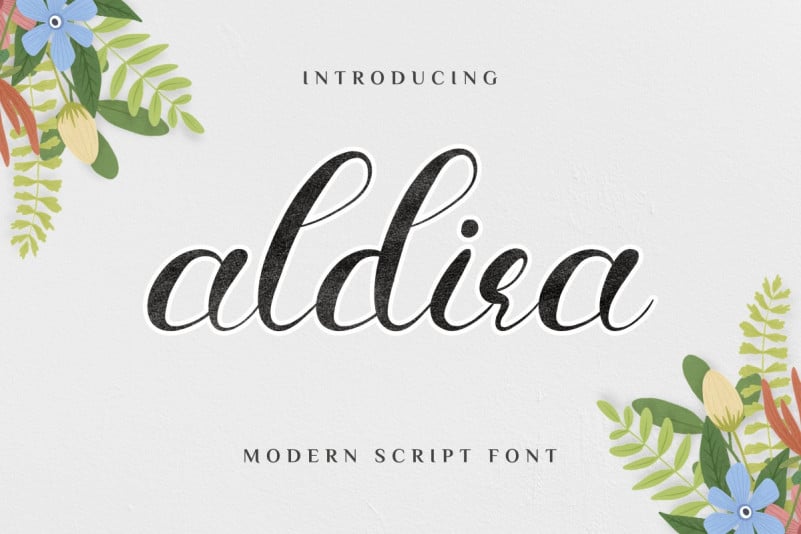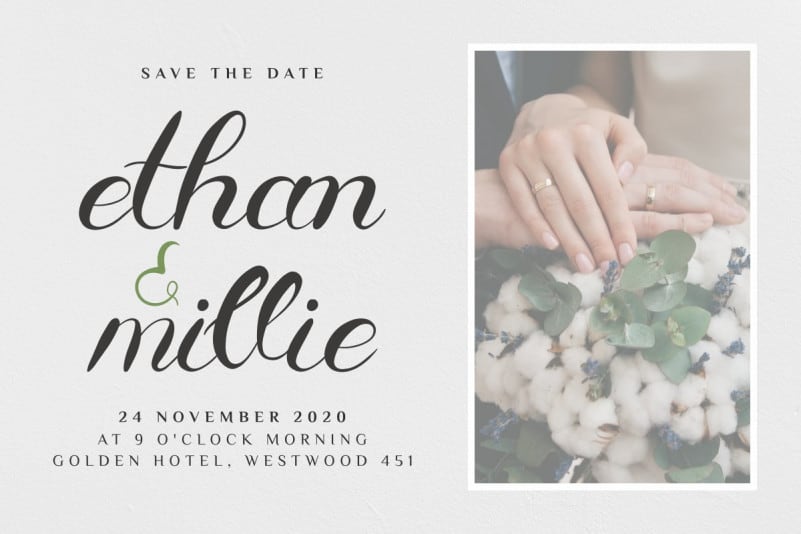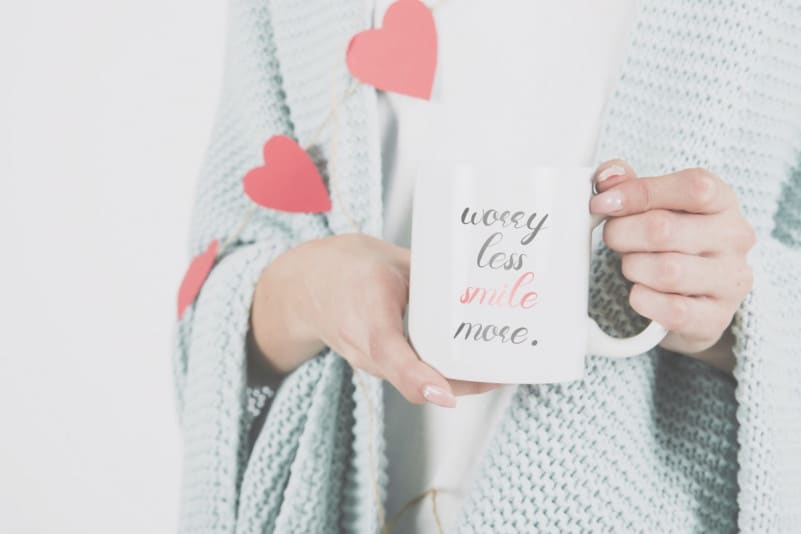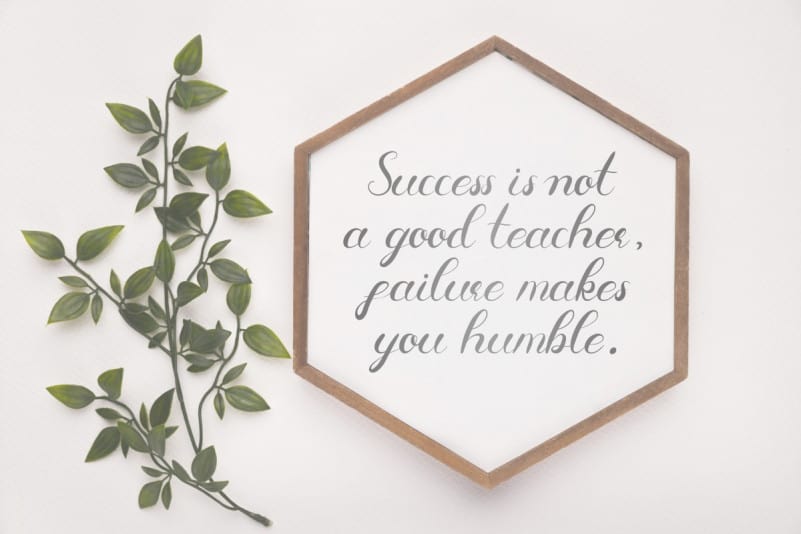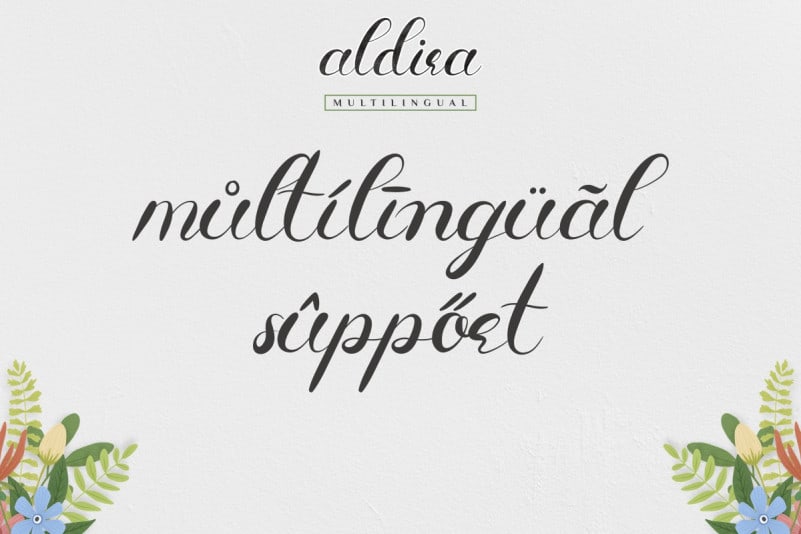
Aldira Calligraphy Font
Introducing our latest font creation : Aldira Calligraphy Font. This is a Calligraphy font, handcrafted from our Studio here in, Indonesia. The artists/designers of this beautiful tyeface is Widiyanti and Sarah Suci.
It’s an exclusive calligraphy script typeface with brush style. This font has a stunning characters set, perfectly managed with well spaced and kerning. The theme style of this font will elegant, vintage, stylish, sophisticated and classic brush calligraphic style.
Aldira Calligraphy Font will be great for any projects including : branding, logo, stationery, business card, signage, flyer, brochure etc. Almost all industries will be match for this typeface: wedding, events, real estate, architect, law firm, florist, gardening, makeup artist, travel, hotel, musician etc